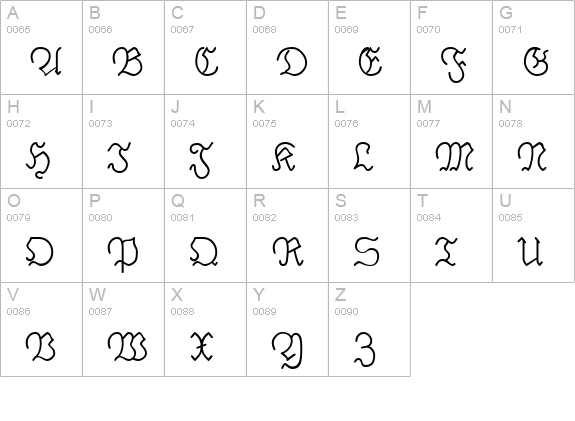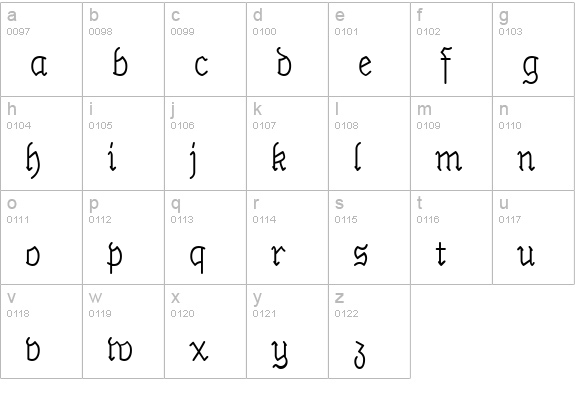
PhrackSle Font Details
PhrackSle font is a stunning display typeface that effortlessly combines elegance and edginess. With its unique and intricate letterforms, this font is sure to captivate and inspire any design project. The PhrackSle font is a perfect choice for headlines, logos, posters, and any other design that requires a bold and impactful statement. Its stylish and modern aesthetic exudes confidence and sophistication, making it a versatile option for both professional and creative endeavors. What sets PhrackSle font apart is not only its striking design but also its accessibility. It is freely available to download at FontsMarket.com, allowing designers and enthusiasts to unleash their creativity without any limitations. This font embodies the spirit of freedom, empowering users to express themselves without boundaries. With its wide range of characters and ligatures, PhrackSle font offers endless possibilities for customization and experimentation. Whether you're looking to create a sleek and minimalistic design or a vibrant and eye-catching composition, this font has got you covered. In addition to its aesthetic appeal, PhrackSle font also offers exceptional legibility, ensuring that your message is communicated effectively. Its clean lines and carefully crafted curves make reading effortless and enjoyable, guaranteeing that your design stands out from the crowd. Experience the power and versatility of PhrackSle font today. Download it for free at FontsMarket.com and unlock a world of creative possibilities. Elevate your designs with this remarkable font and make a lasting impression on your audience.